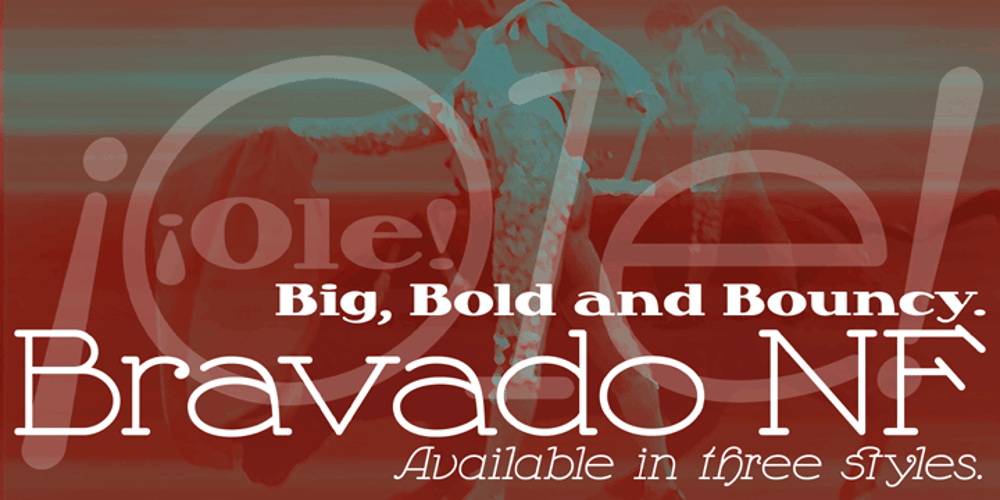
Bravado NF Font Family was designed by Nick Curtis, Martin Jacoby-Boy and published by Nick’s Fonts. Bravado NF contains 3 styles and family package options. This growing family of friendly faces is based on the typeface Bravour, designed in 1913 by Martin Jacoby-Boy for the D. Stempel AG foundry in Frankfurt am Main. The wide stance and very large x-height shared by the family members makes them warm and inviting, and equally suitable for use in headlines or text blocks. All versions of this font include the Unicode 1250 Central European character set in addition to the standard Unicode 1252 Latin set.